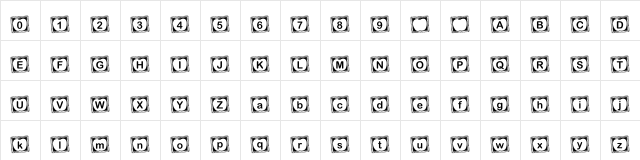
KR Rachel's Chalkboard Regular
Design Context for KR Rachel's Chalkboard Typeface
KR Rachel's Chalkboard offers clean, dependable letterforms without strong stylistic allegiance, making it a practical choice for designers who need flexibility.